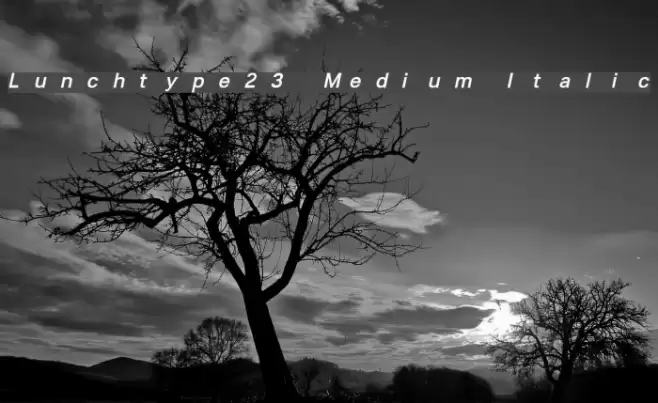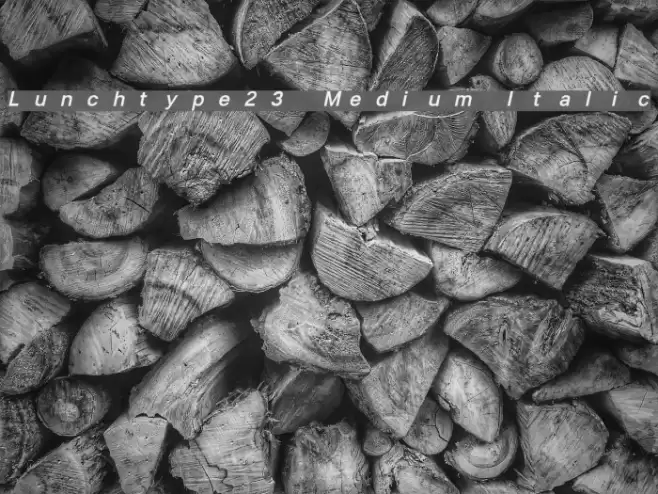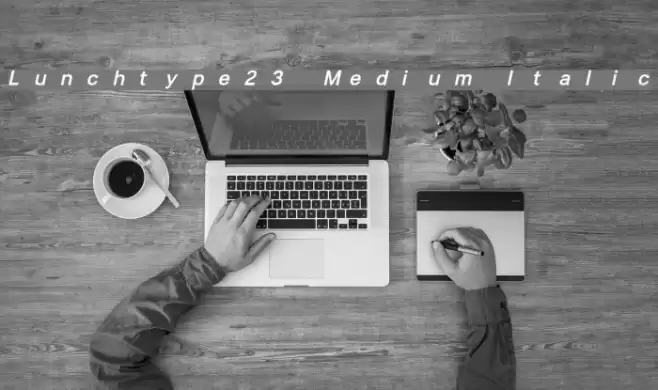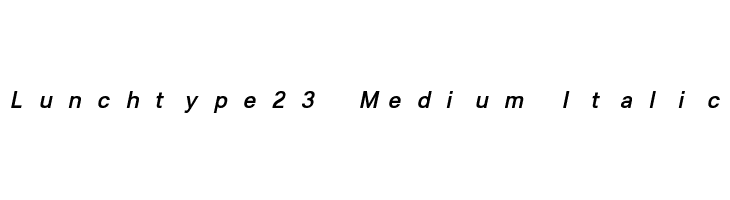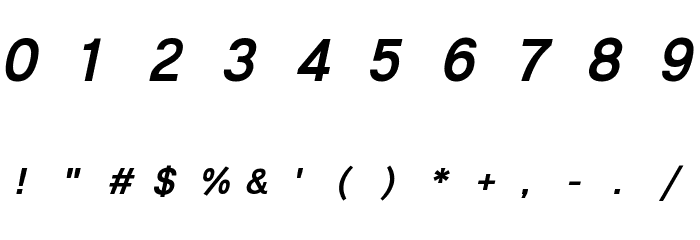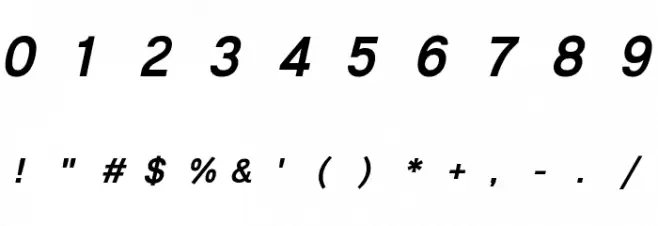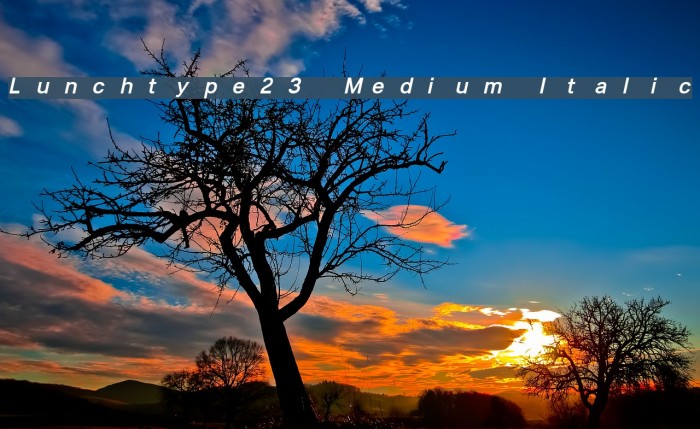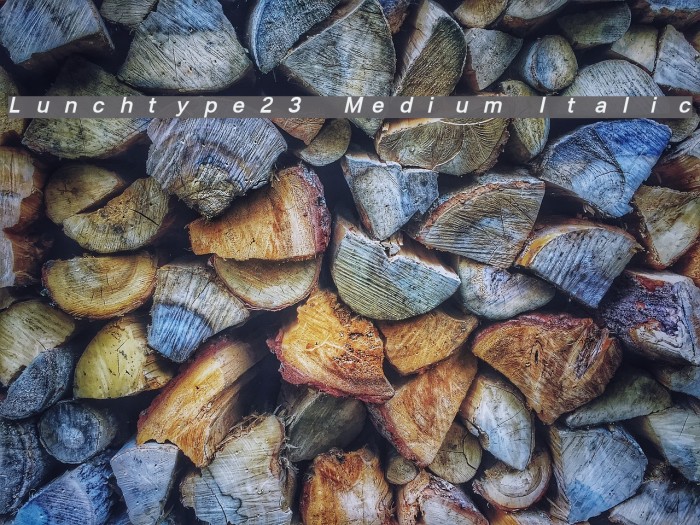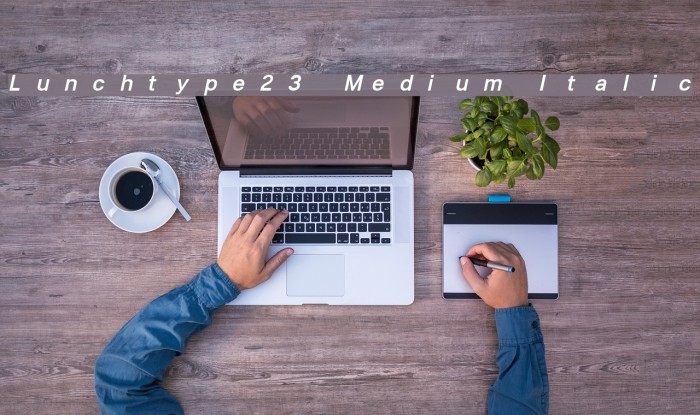
Lunchtype23 Medium Italic Font
Lunchtype23 Medium Italic Description
This font exhibits a clean and modern aesthetic with a slight italic slant, giving it a dynamic and forward-moving appearance. The characters are well-proportioned with a consistent stroke width, contributing to its readability and versatility. The uppercase letters maintain a uniform height, while the lowercase letters are slightly smaller, providing a balanced contrast. The numerals are clear and distinct, matching the style of the alphabetic characters. Special characters are included, maintaining the same stylistic features, ensuring comprehensive usability across various applications.
A modern, italic font with clean lines and balanced proportions from Uncategorized fonts.
- Proposed Projects: Ideal for branding projects, modern web design, and editorial layouts where a contemporary and sleek look is desired.